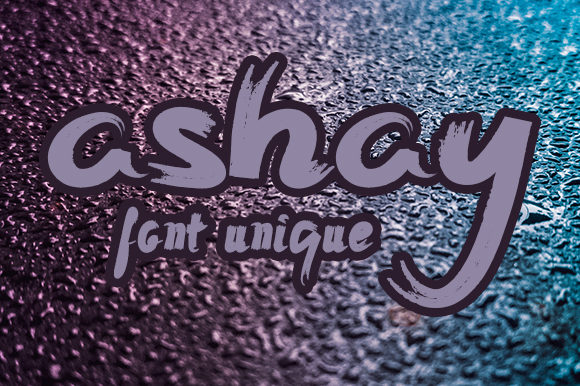
Ashay
About Ashay Font
Ashay is a simple and neat lettered display font. Add this font to your creative ideas and notice how it will make them stand out!